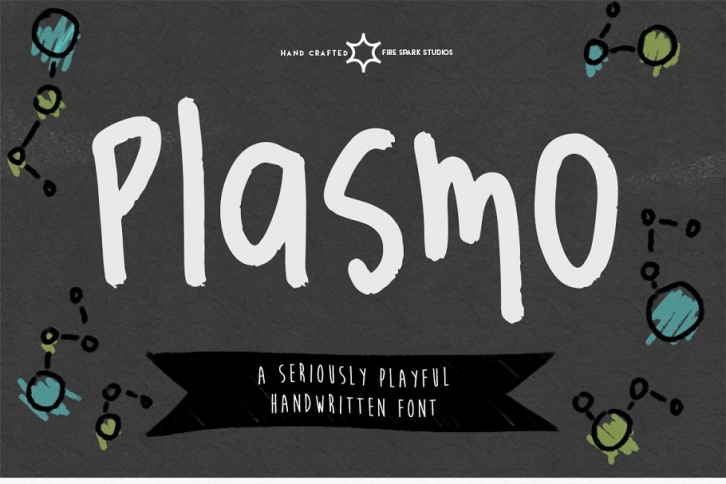
Introducing Plasmo!
Thick and chalky, Plasmo has plenty of play and bounce to keep your project from taking itself too seriously.
It includes uppercase and lowercase characters, numerals, and punctuation marks.